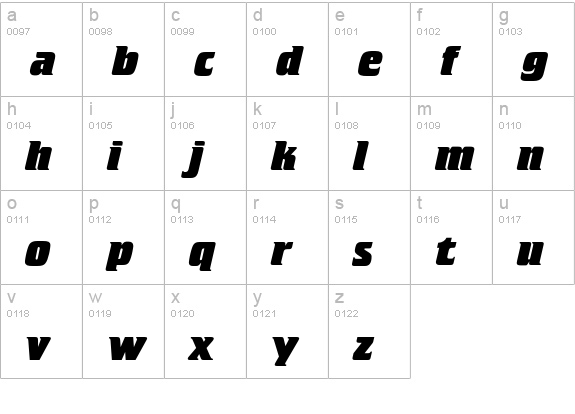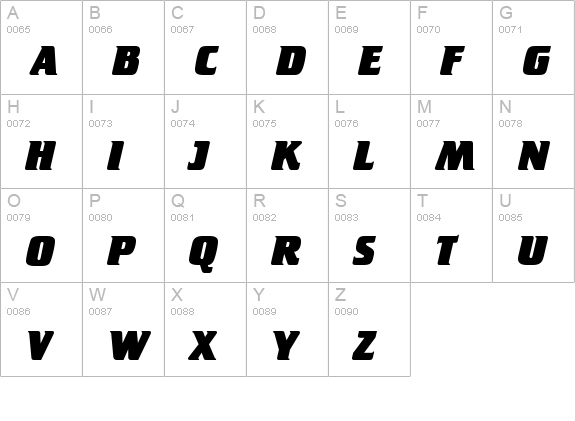
ATCrillee-ExtraBoldItalic Font Details
ATCrillee-ExtraBoldItalic is a striking and visually distinctive font that exudes a sense of boldness and elegance. Its extra bold weight combined with italic styling creates a unique and eye-catching look that commands attention. This font is perfect for making a statement in headlines, titles, and other display text where a strong and dynamic presence is desired. What makes ATCrillee-ExtraBoldItalic even more appealing is that it is available for free download at FontsMarket.com. This means you can easily access and use this stunning font for your design projects without any cost. Whether you're designing posters, banners, logos, or any other creative work, ATCrillee-ExtraBoldItalic is sure to add a touch of sophistication and flair to your designs. Download it today and elevate your typography game with this exceptional typeface.